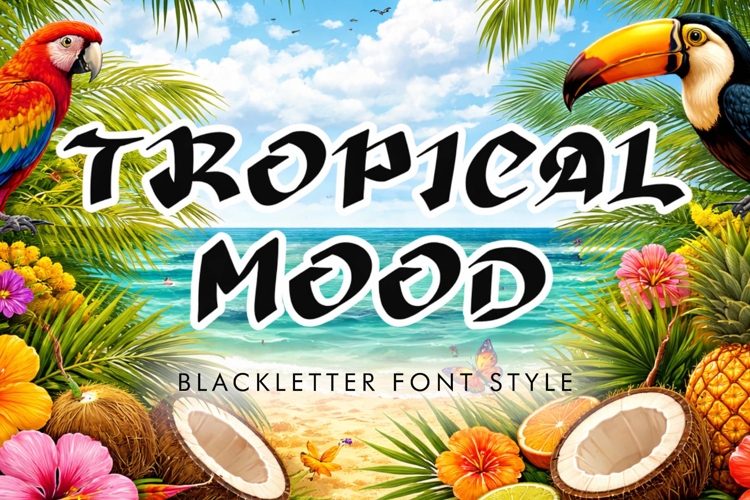
"Tropical Mood" is a unique and elegant display font. It features uppercase and lowercase letters, numerals, punctuation, and multilingual support. It's perfect for summer, spring, Easter, banners, posters, logos, patriotic prints, branding, vacations, holidays, back to school, Christmas, Halloween, Mother's Day, Patrick's Day, Teacher's Day, and more.